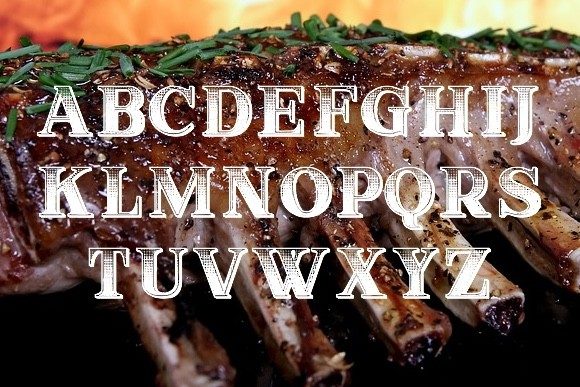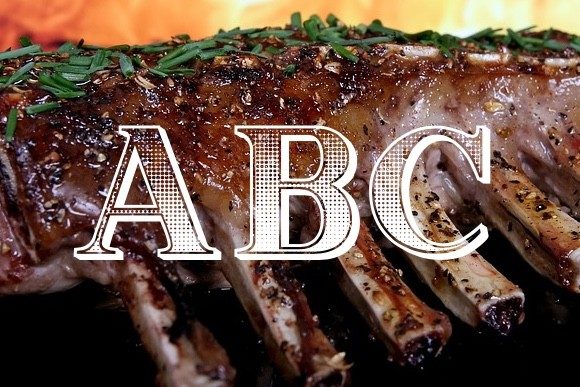
Bull Font: Elevate Your Designs with a Powerful Serif Typeface
Are you tired of using the same old fonts in your designs? Look no further than the Bull Font, a stunning serif typeface that’s sure to take your creations to the next level. With its classic yet modern aesthetic, Bull Font is perfect for designers and crafters looking to add a touch of sophistication to their work.
What Makes Bull Font So Awesome?
Bull Font is an awesome serif font that boasts a unique blend of traditional and contemporary elements. Its sleek lines, elegant curves, and precise letter spacing make it a joy to read and a pleasure to look at. Whether you’re designing a poster, flyer, banner, or any other visual material, Bull Font is sure to make your work stand out from the crowd.
Key Features of Bull Font
- Classic Serif Design: Bull Font features a traditional serif design that’s perfect for creating elegant and sophisticated designs.
- Modern Twist: Despite its classic roots, Bull Font has a modern edge that’s sure to appeal to designers looking for a fresh take on traditional typography.
- Highly Legible: With its clear and precise lettering, Bull Font is highly legible, even at small sizes.
- Versatile: Bull Font is perfect for a wide range of design applications, from posters and flyers to banners and more.
How to Use Bull Font in Your Designs
Using Bull Font in your designs is easy. Here are a few ideas to get you started:
- Posters: Create eye-catching posters with Bull Font as the headline or body text.
- Flyers: Use Bull Font to add a touch of elegance to your flyers and brochures.
- Banners: Make a statement with Bull Font on your banners and signs.
- Branding: Use Bull Font as part of your brand identity to add a touch of sophistication and professionalism.
Tips for Getting the Most Out of Bull Font
Here are a few tips for getting the most out of Bull Font:
- Experiment with Font Sizes: Bull Font looks great at a wide range of font sizes, so don’t be afraid to experiment and find the perfect size for your design.
- Play with Color: Bull Font looks great in a variety of colors, so try experimenting with different colors and color combinations to find the one that works best for your design.
- Mix and Match with Other Fonts: Bull Font pairs well with a wide range of other fonts, so don’t be afraid to mix and match to create a unique and interesting design.
Whether you’re a seasoned designer or just starting out, Bull Font is a great addition to your font library. Its unique blend of traditional and contemporary elements makes it a great choice for a wide range of design applications, from posters and flyers to banners and more. So go ahead, give Bull Font a try, and see the difference it can make in your designs.